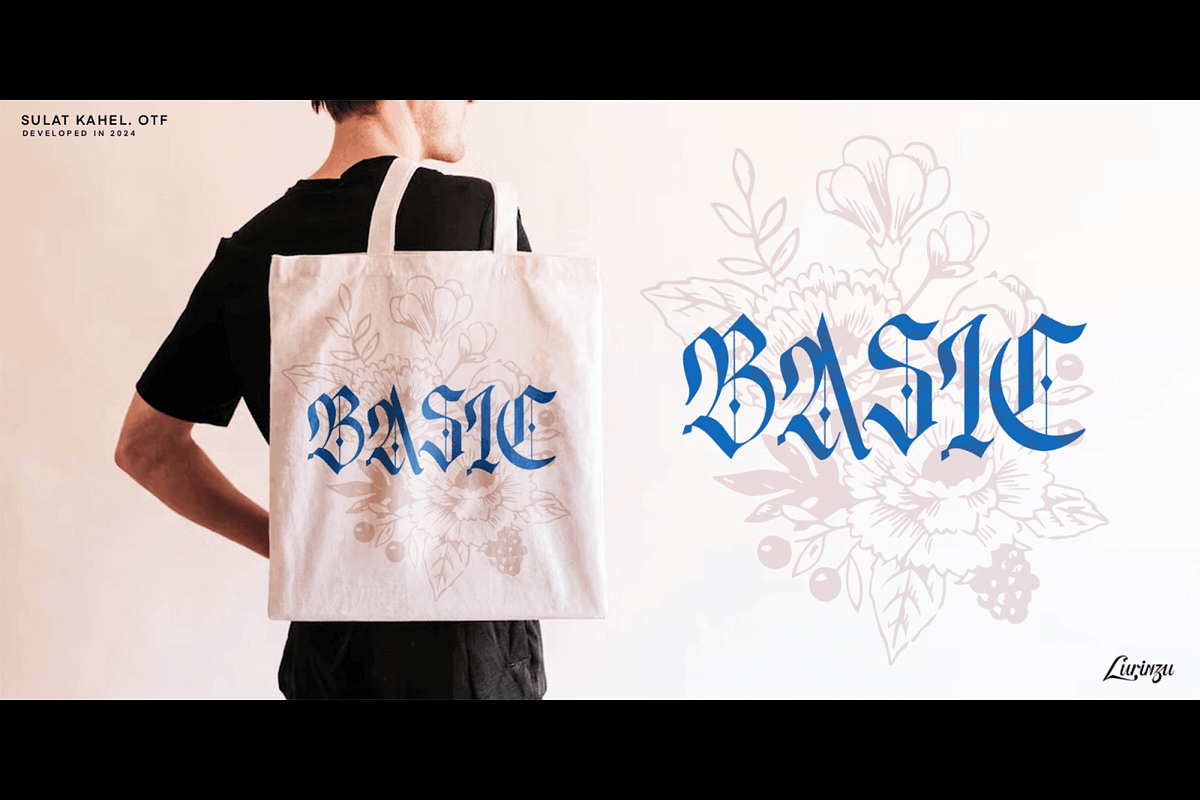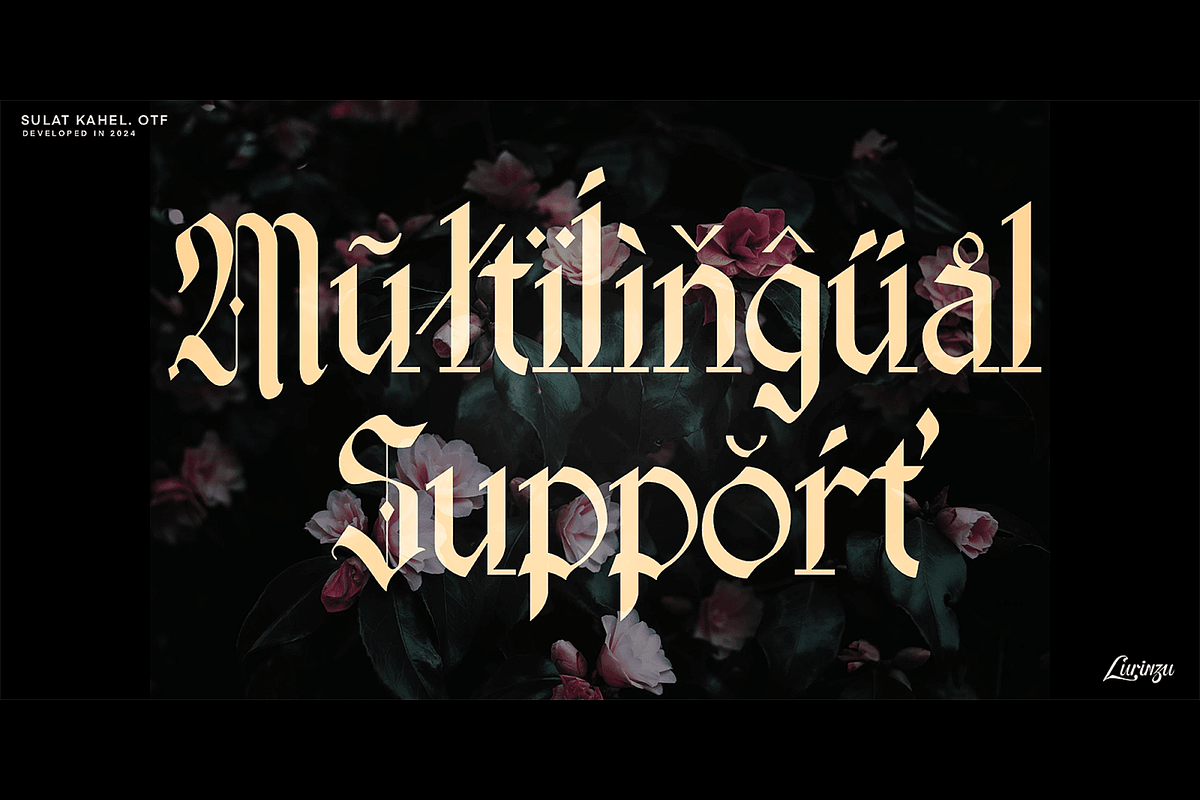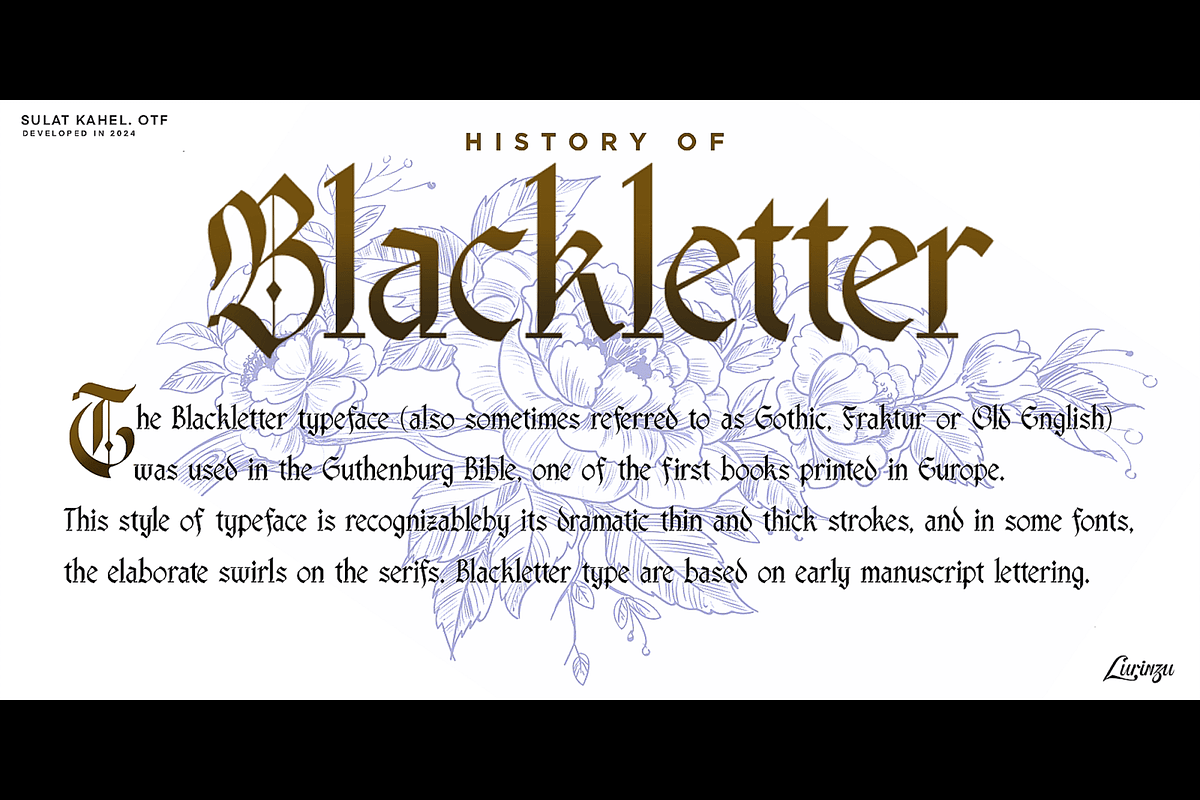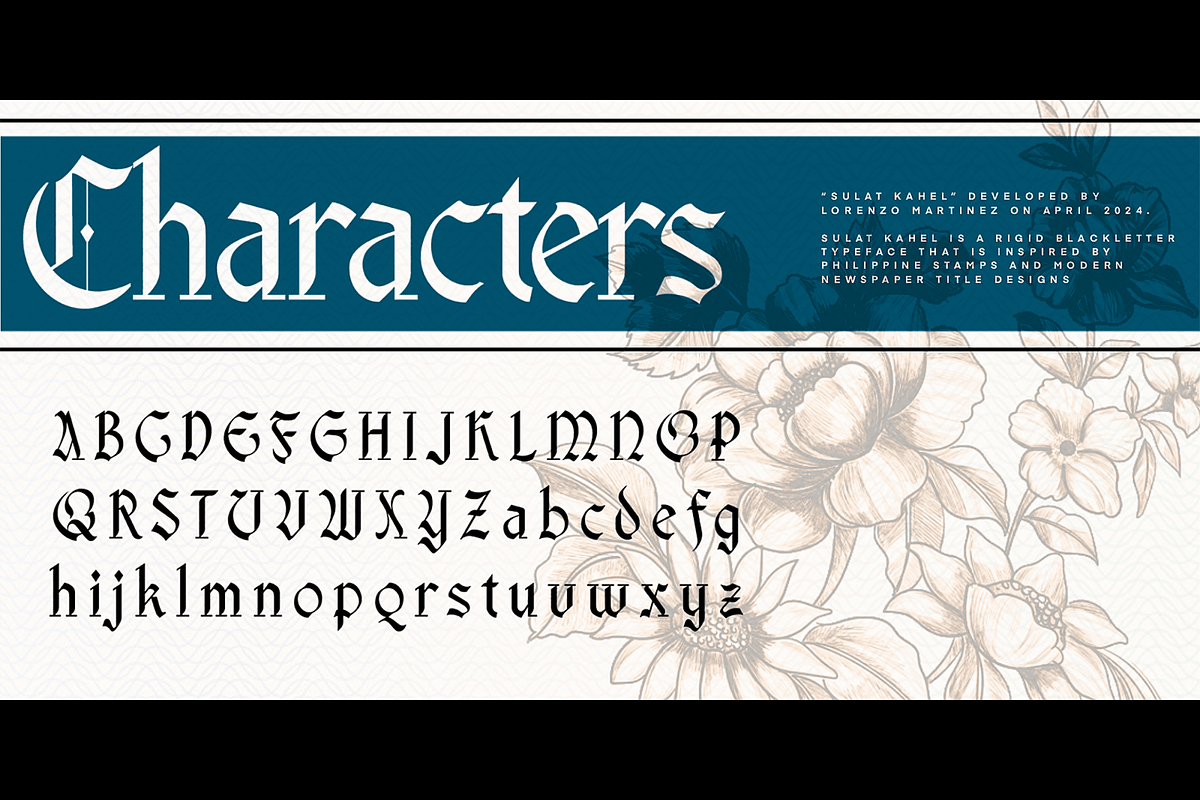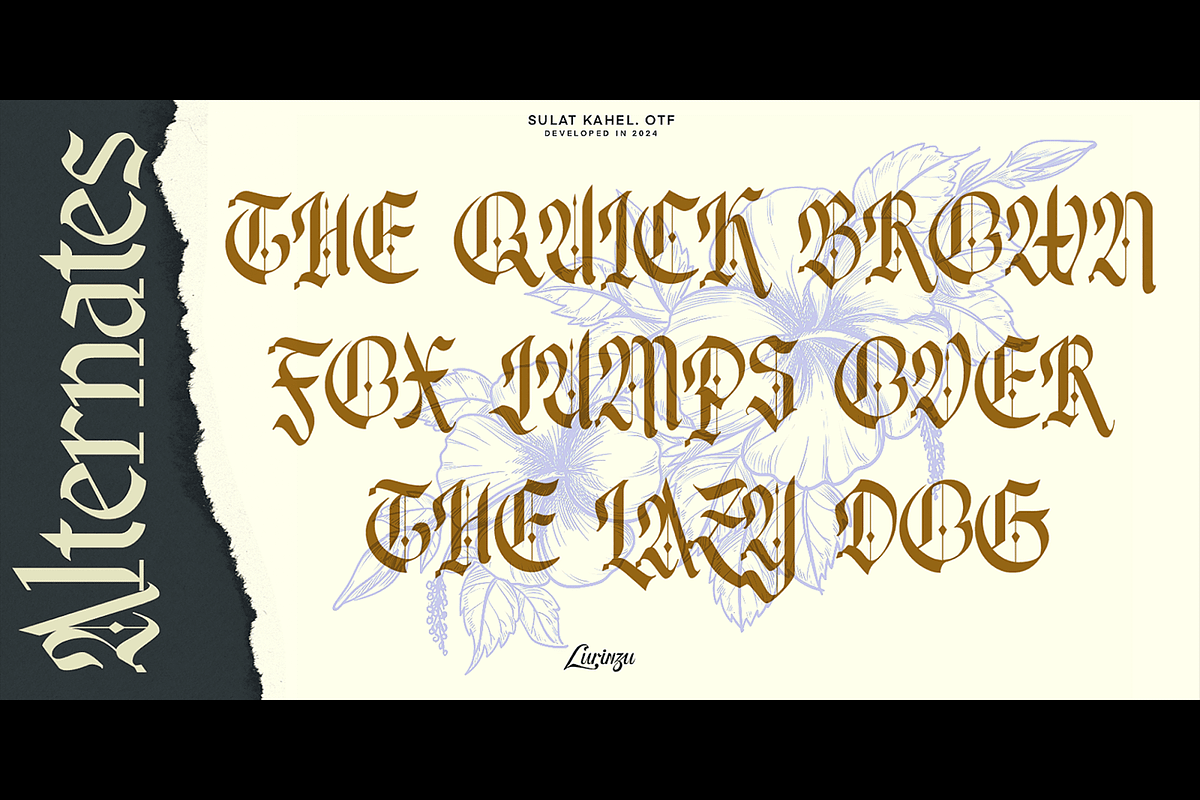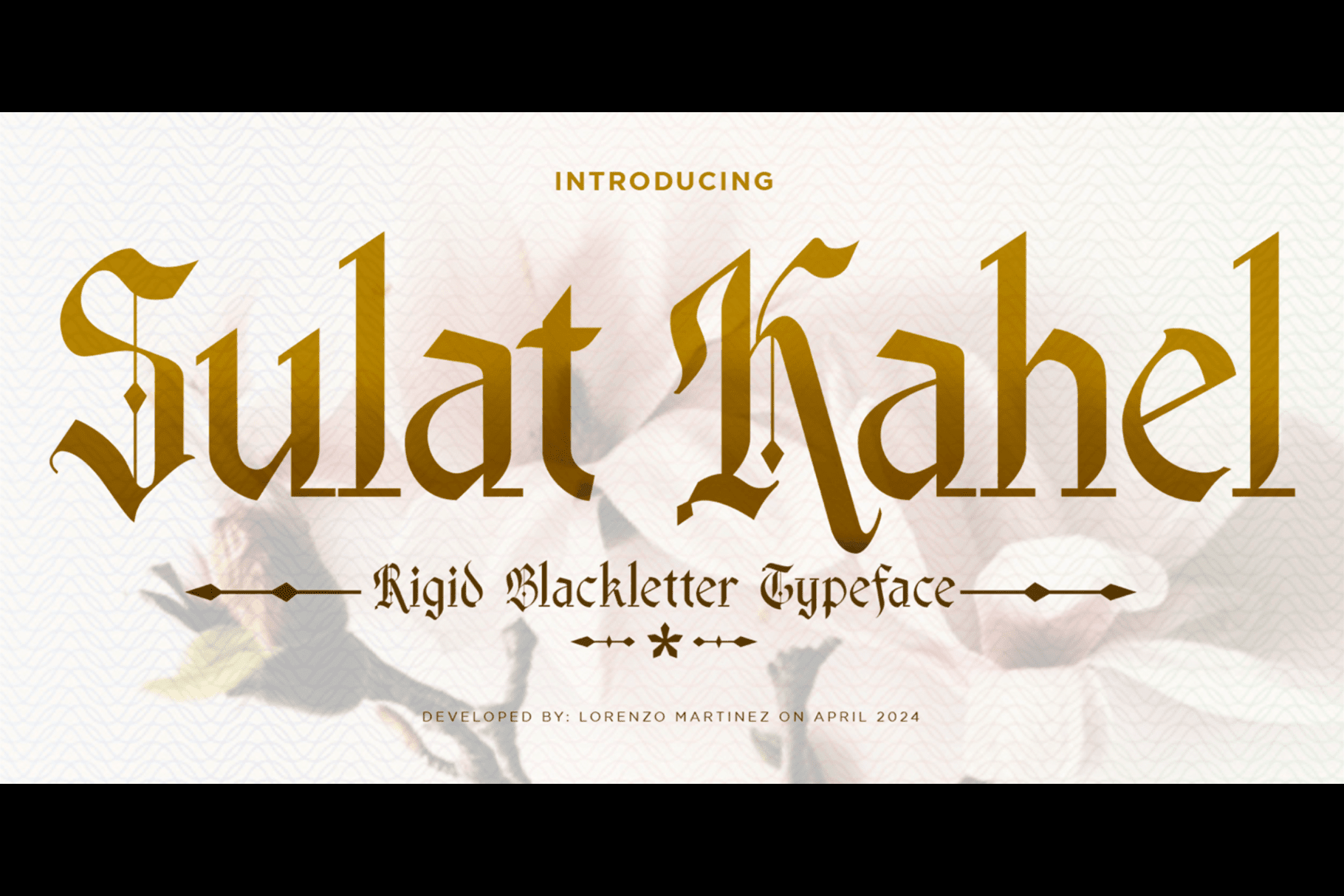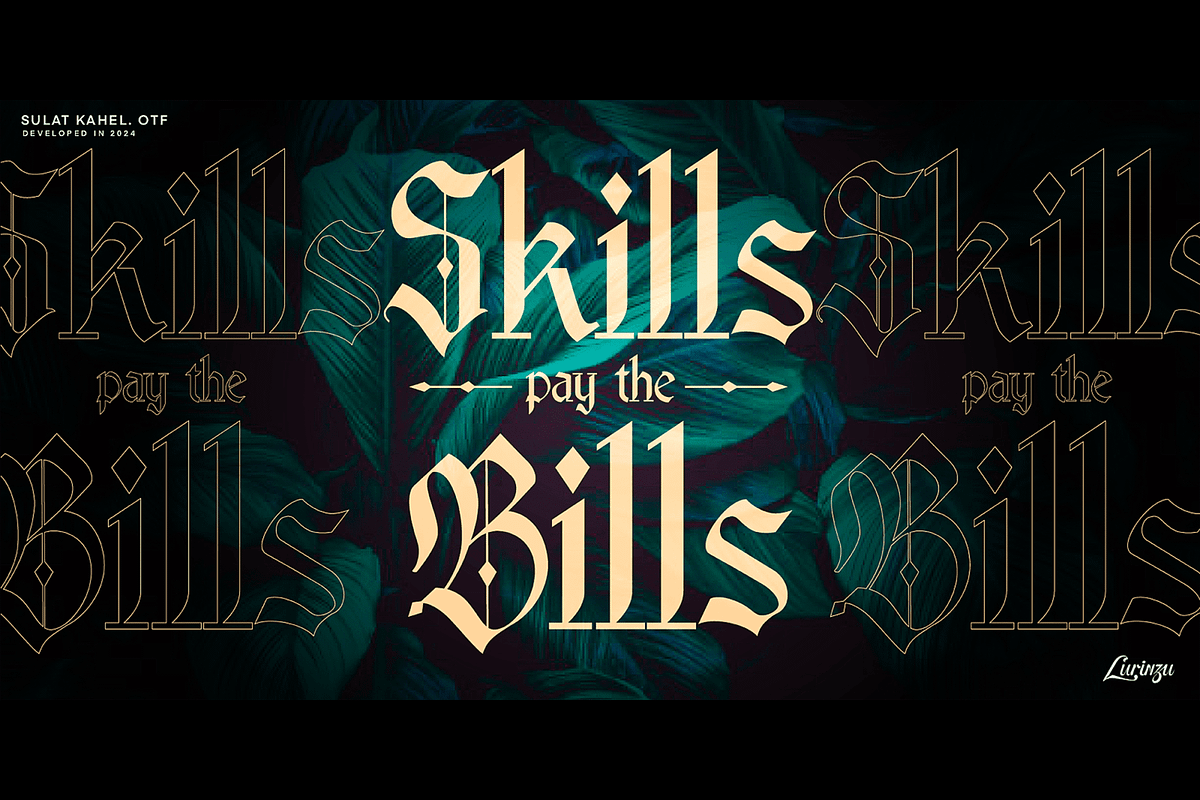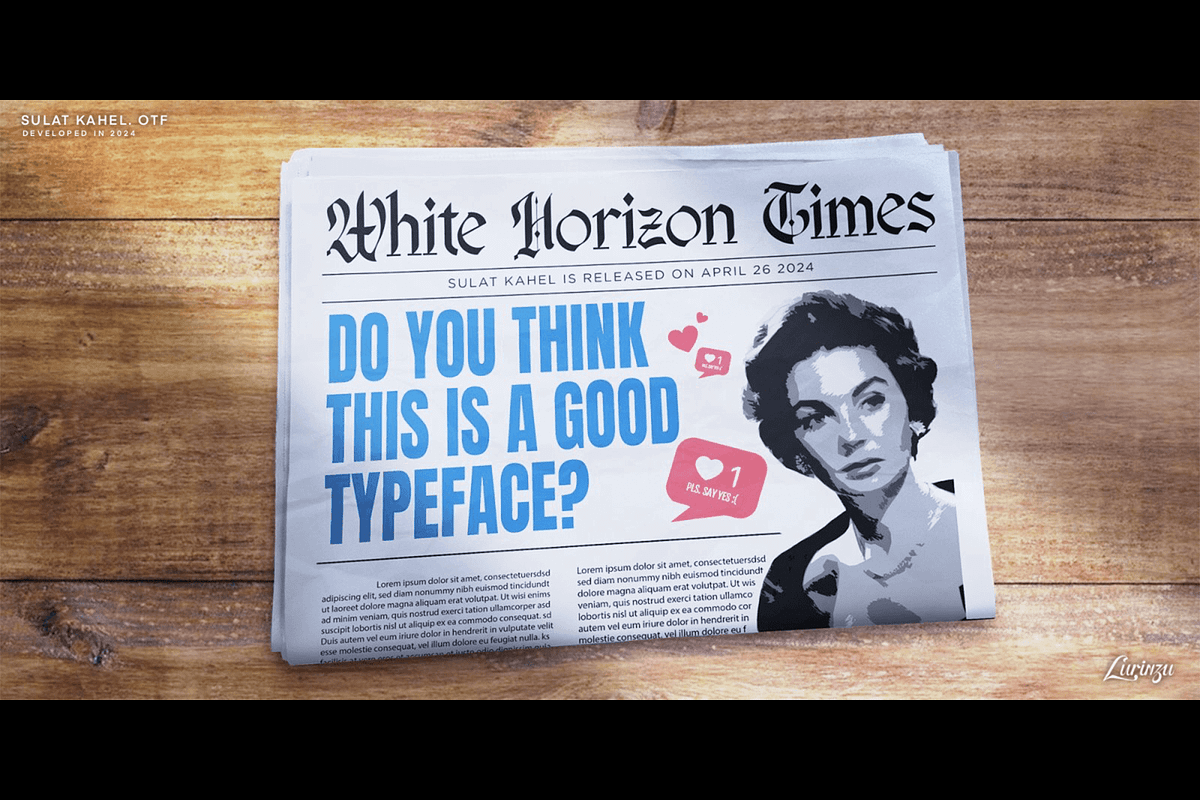
Sulat Kahel- Blackletter Typeface
"Sulat Kahel" is a black letter typeface that is inspired by various black letter influence ranging from fraktur, Schwabacher and Rotunda. It is an amalgamation of these 3 styles.
Sulat Kahel means "Brown writing" in Filipino. Sulat= Writing, Kahel = Brown. The name comes from the inspiration and idea of the "Philippine blackletter style" that commonly uses black letter styling in its typography.